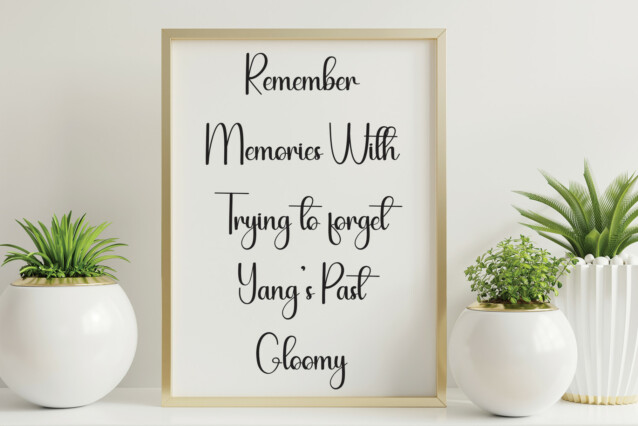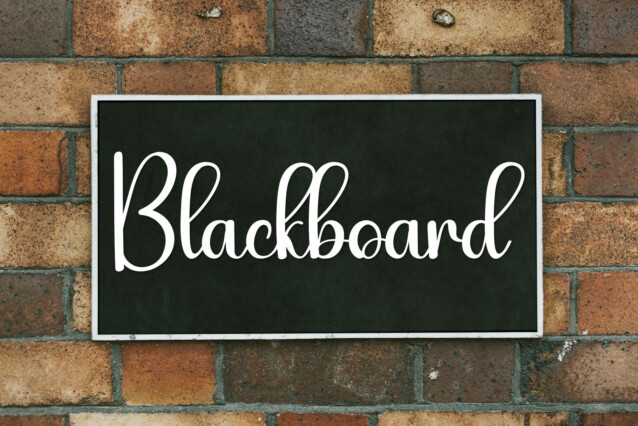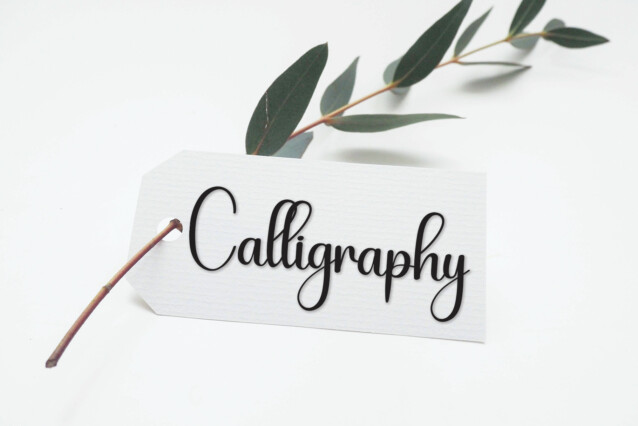
Happy February Script Font
Happy February Script Font is one lovely and elegant handwritten font. The latest style letters are perfect for wall displays, wedding invitations, social media post logos, advertisements, product packaging, product designs, labels, photography, watermarks, invitations, and stationery. Add this beautiful font for any project that requires taste handwriting.